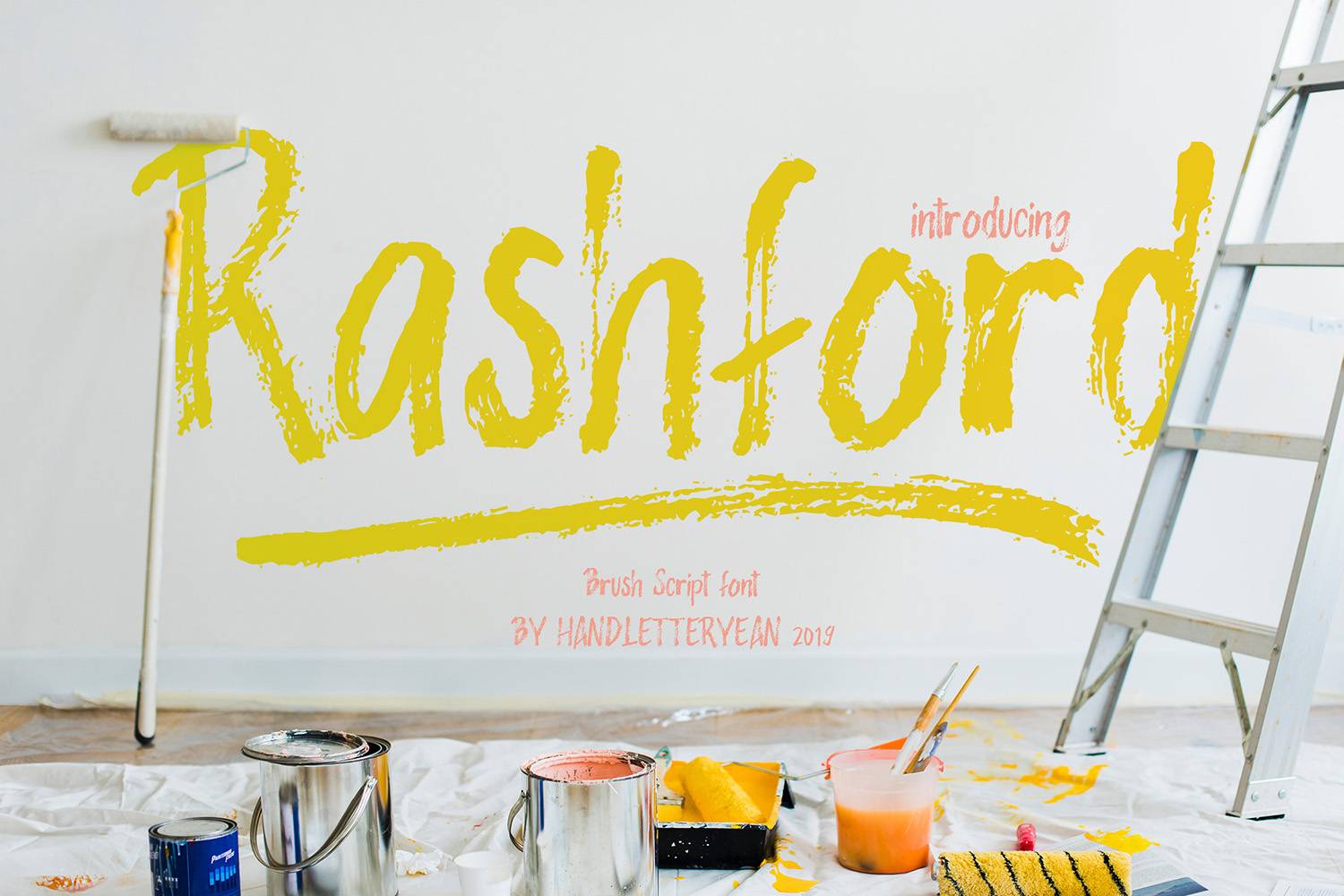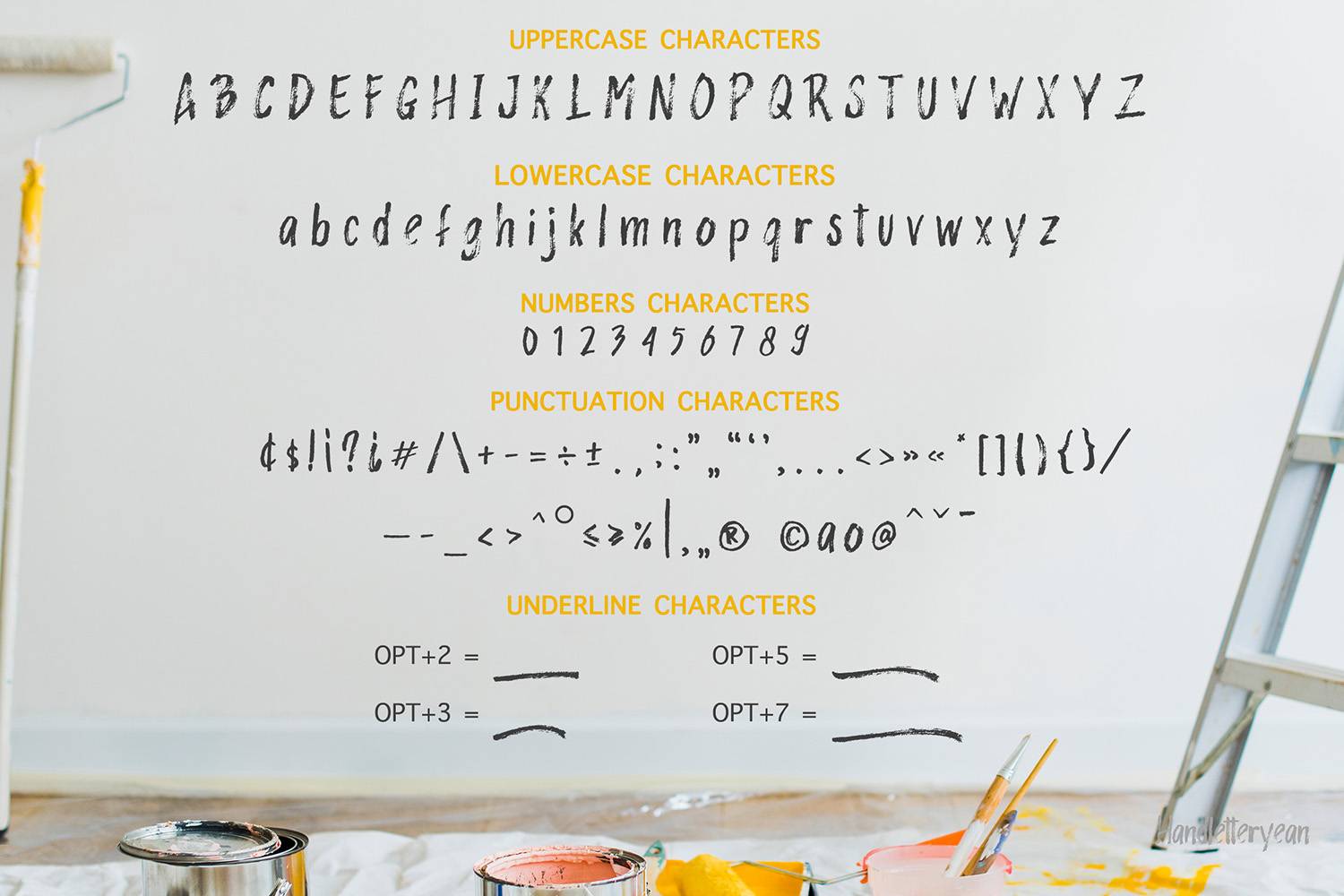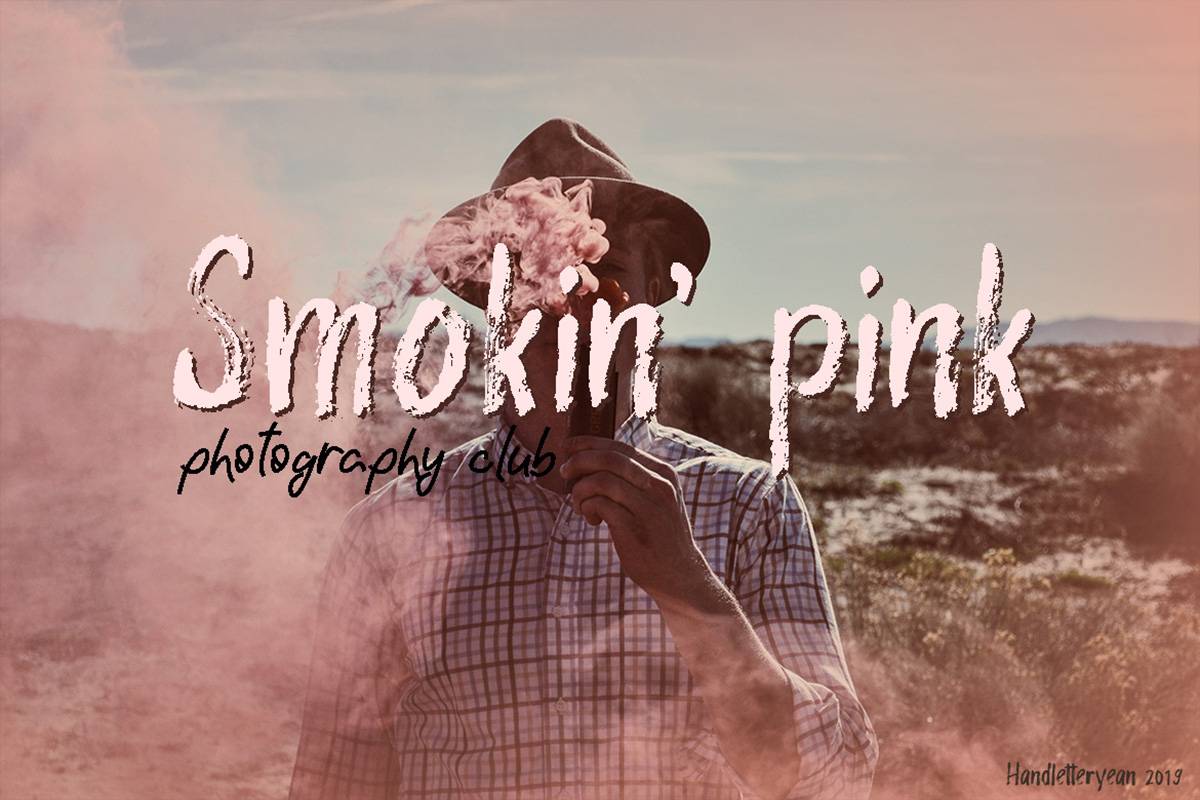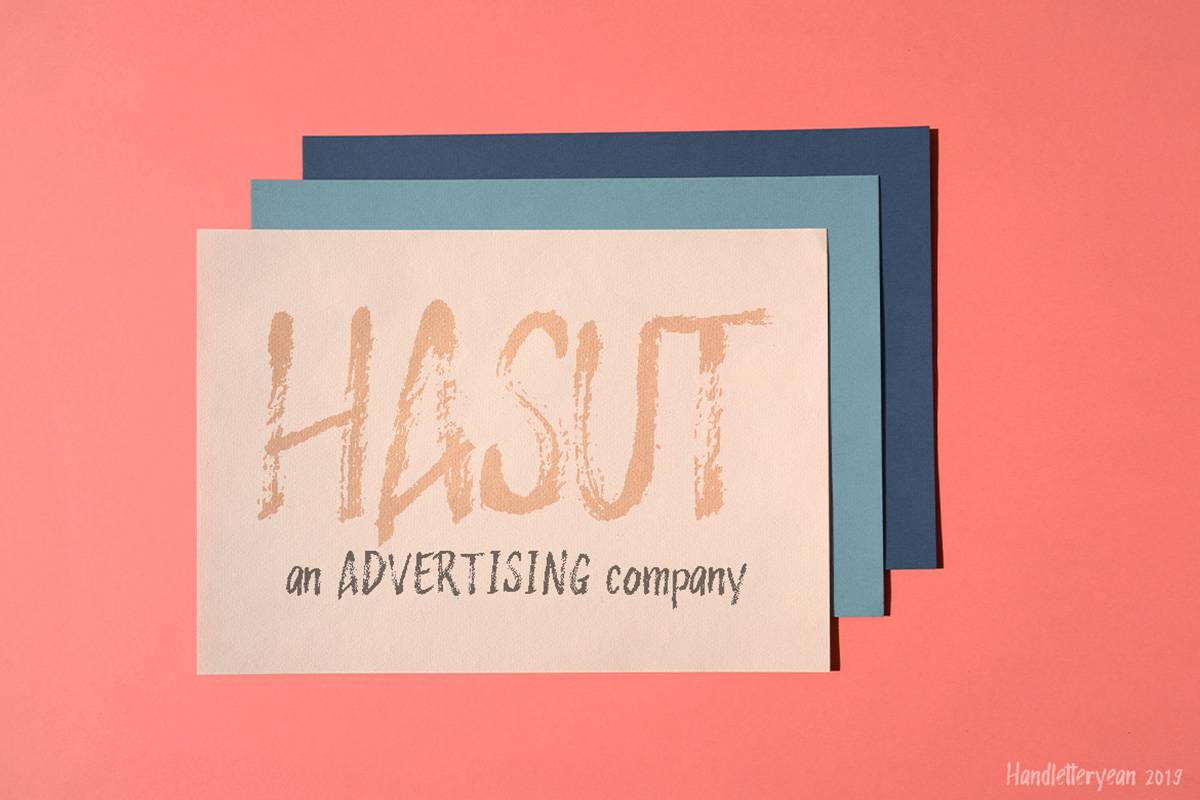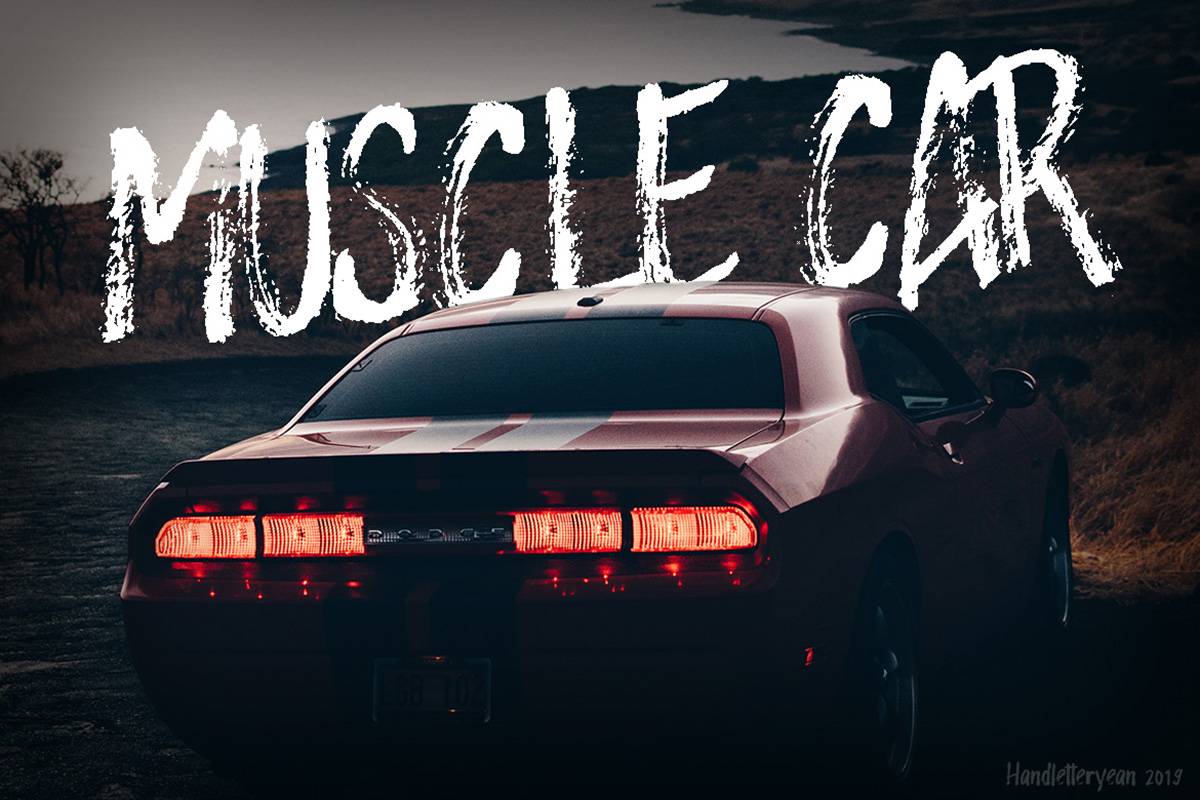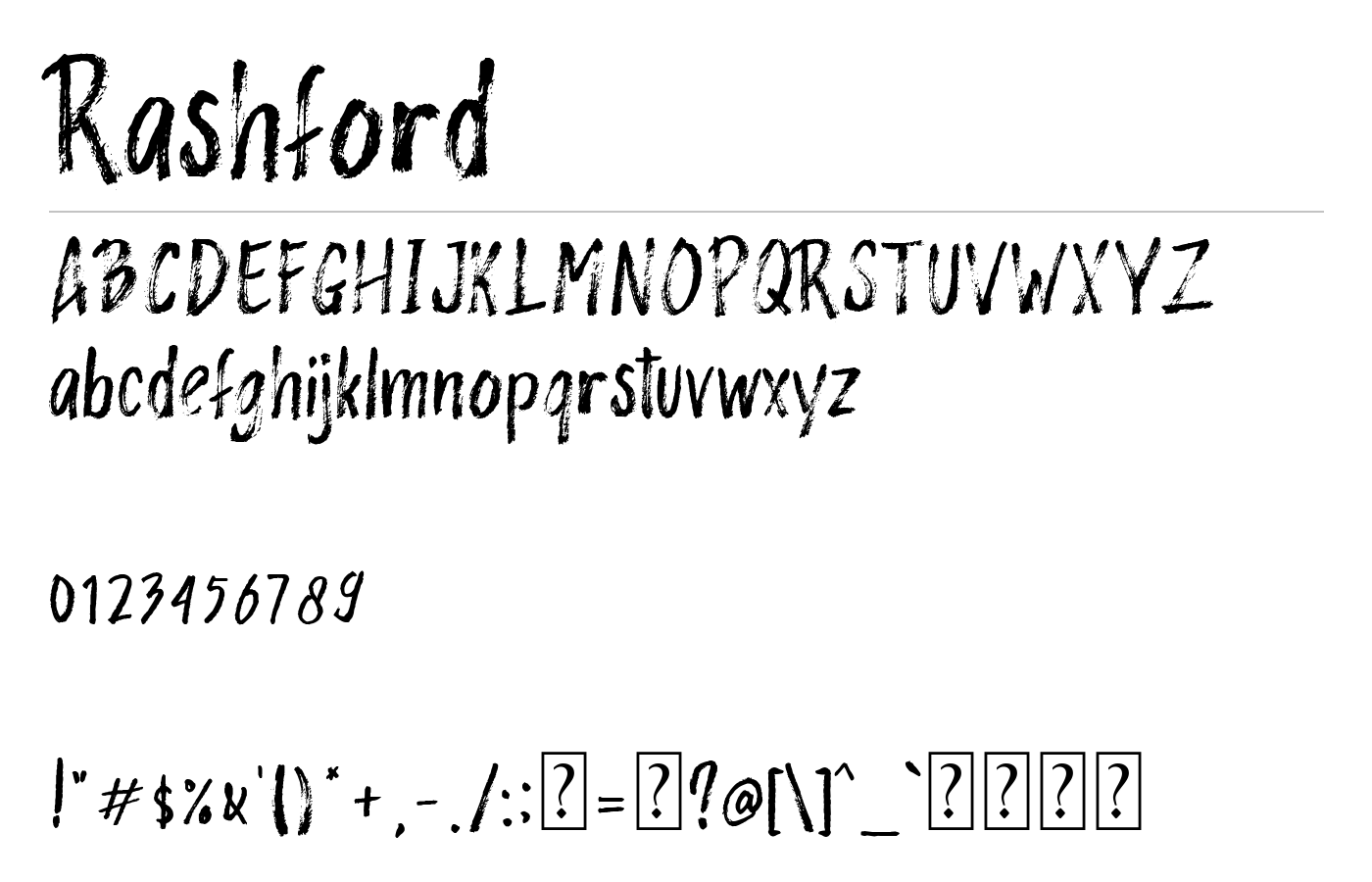
Rashford is a rough, handwritten-style sans serif font that feels spontaneous and energetic with its textured, brush-like strokes. Its irregular shapes and casual flow make it ideal for creative, informal designs such as posters, branding for youth-focused or artistic projects, and expressive headlines. This font brings a raw, authentic personality that works well when you want to convey individuality and a hand-crafted vibe.
| Font family | Rashford Font |
| Release date | 2019-01-09 |
| Designer | Handletteryean |